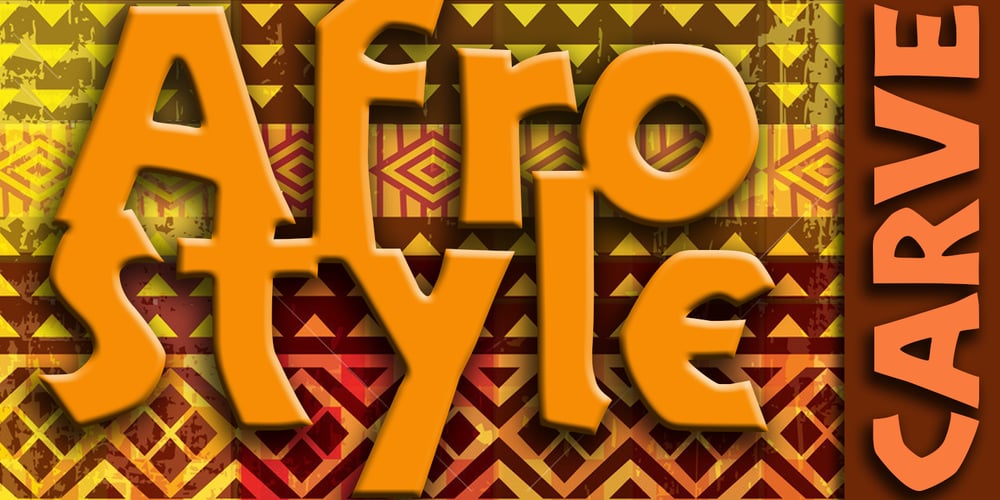
Carve Font Family was designed by Anton Scholtz and published by Scholtz Fonts. Carve contains 2 styles and family package options. Carve is an African font that was inspired by fonts such as Othello and Neuland designed in the mid-1920s. Rather than attempting to re-create these fonts in a digital form as so many others have done, I have tried to capture the “spirit” of the period and emphasize the “woodcarving” style of the font, while simultaneously giving it a contemporary feel. As a result the characters differ markedly any of the original styles and have much less of an “Art Deco” look to them. To further modernize Carve, I have included all the characters required for a full character set (lower case, as well as all punctuation, numerals, diacritics, special characters etc). The result is a thoroughly modern re-interpretation. The numbers (0 to 9) bear no relation to any originals but, I believe, are fully in keeping with the upper and lower alphabetic characters of my font. Carve comes in two styles: –Regular: contemporary, angular African style –Incised: exaggerating the chunky, hand-carved “woodcut” effect. The “in-line” effect has been hand-crafted to avoid the mechanical effect of computer-generated inline effects.